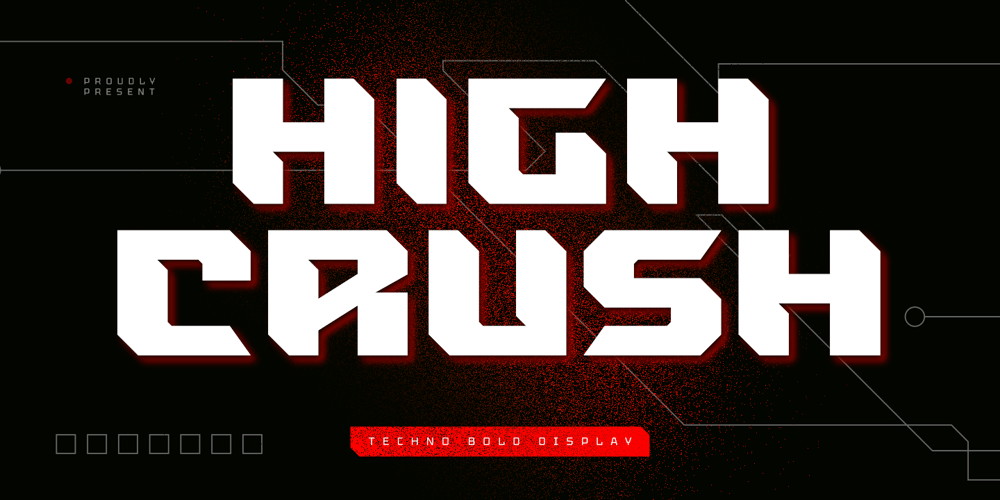
High Crush Font Family was designed by Toni Setiawan and published by Namara Creative Studio. High Crush contains 1 styles and family package options. A visual reflection of progress and dynamism, Elevate your design projects to the next level with our cutting-edge bold techno display fonts. Suitable for a wide range of applications. Whether you’re designing sports event posters, tech product labels, or esports team branding, these fonts will make your content stand out.Features : Bold, Strong & Techno Display Typeface Versatile & Unique Design Alternates, Ligatures & Multilingual Support with PUA Encoded Capture attention, and make a bold impression with these fonts. Start creating the future today!Note : To be able to access ligatures and the alternate letters, please make sure the software you are using can support opentype features.